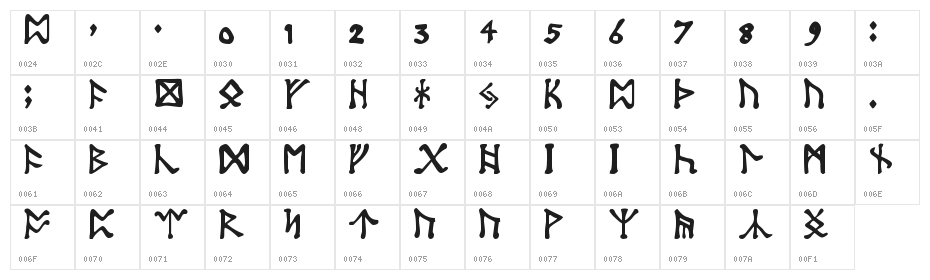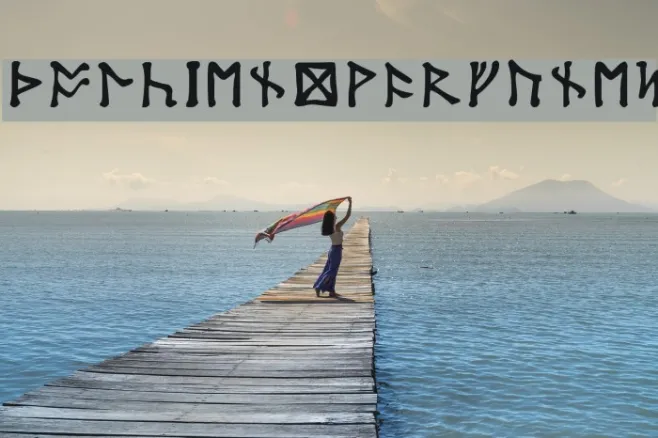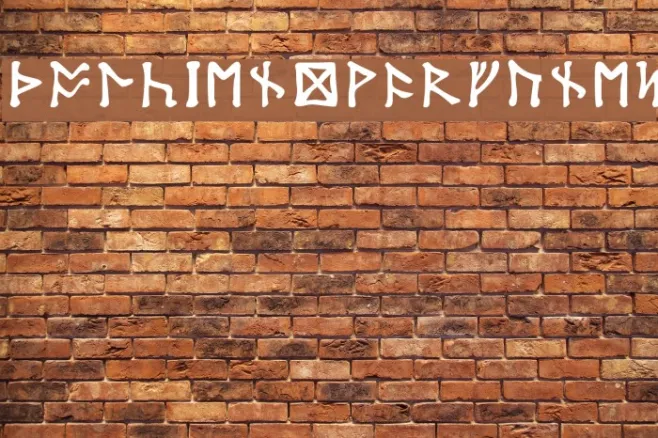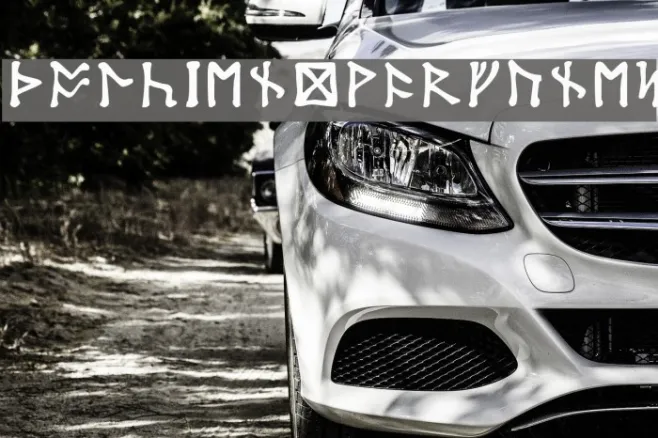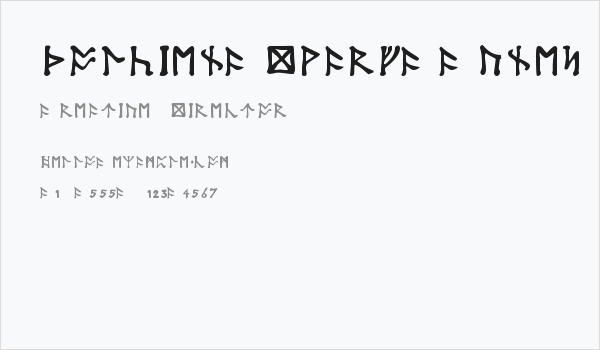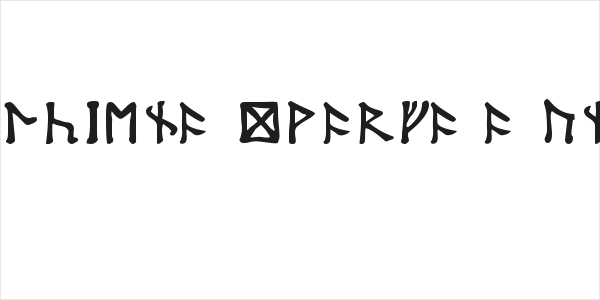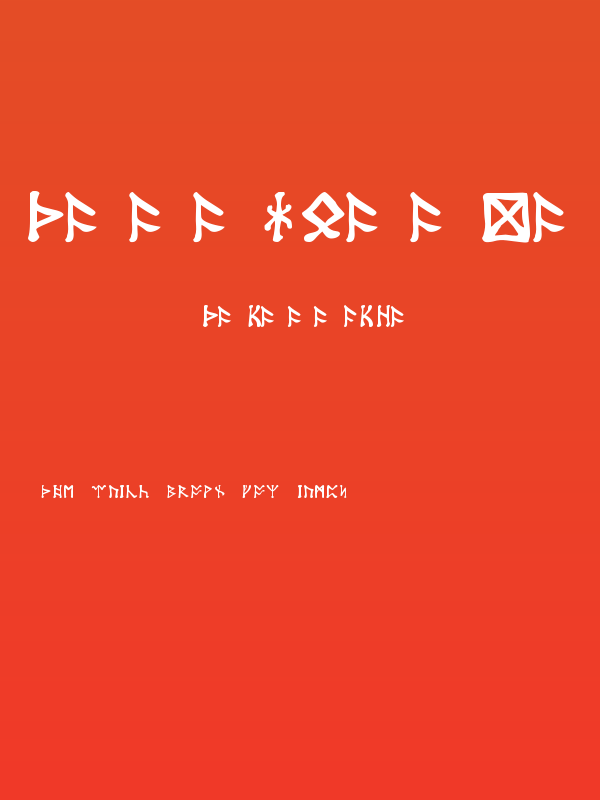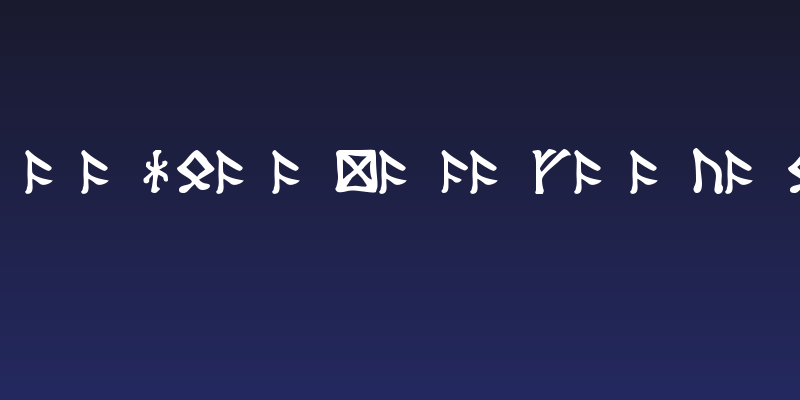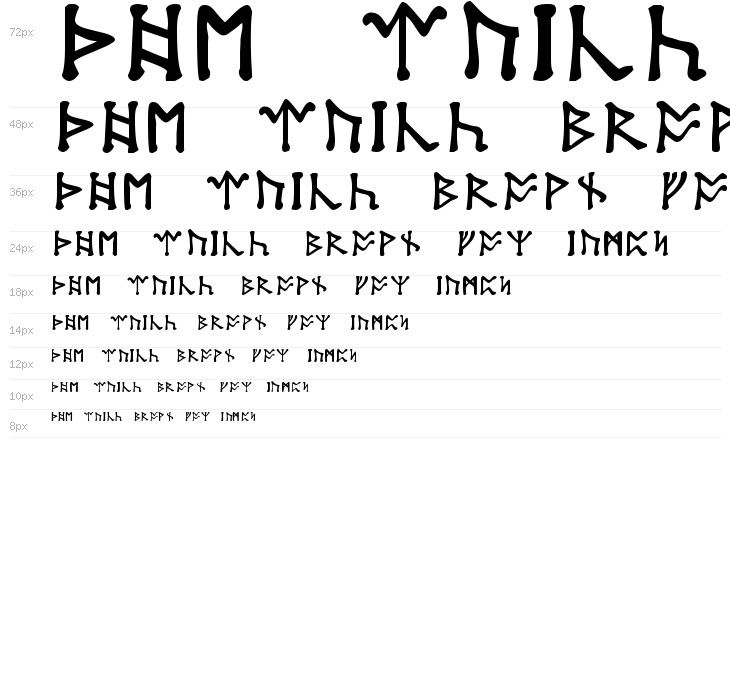
Tolkien-Dwarf-Runes Font
Tolkien-Dwarf-Runes Description
This font is a decorative style inspired by ancient runic scripts, often associated with fantasy themes. The characters are angular and geometric, resembling traditional runes used in fictional settings. Each letter is distinct, with sharp edges and a mystical appearance, making it ideal for creating an ancient or magical atmosphere. The numbers are bold and slightly rounded, maintaining the overall theme. This font captures the essence of a bygone era, perfect for storytelling or thematic designs.
| Use Case | Logos, Titles, Thematic Designs |
| Proposed Projects | Ideal for fantasy-themed projects, game design, book covers, or any creative work requiring an ancient or mystical aesthetic. |